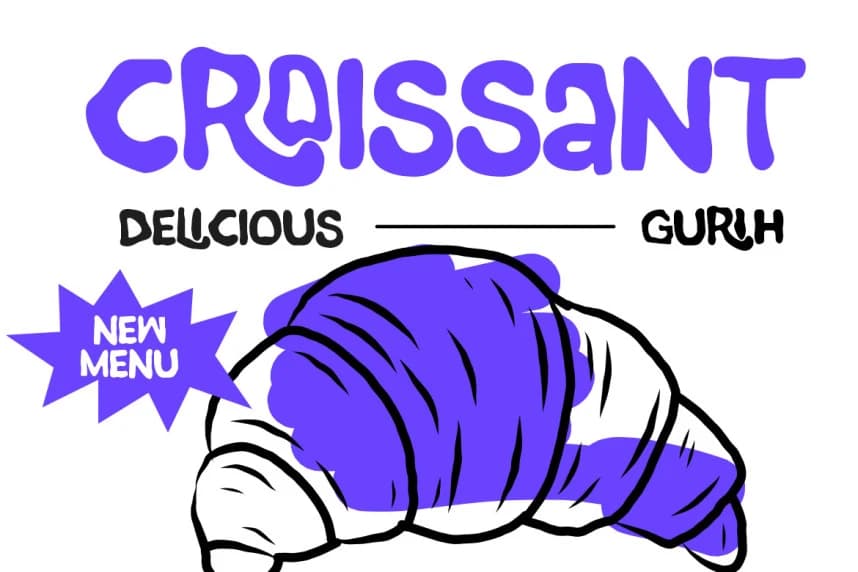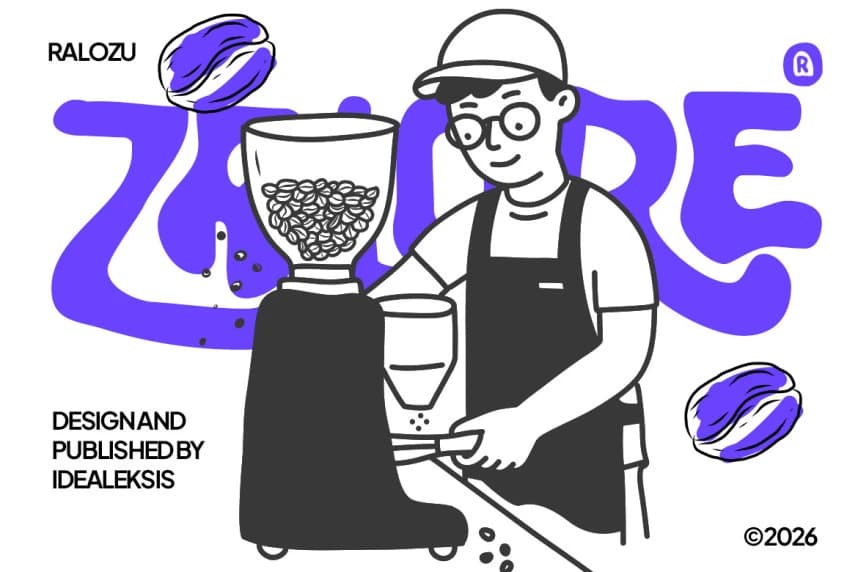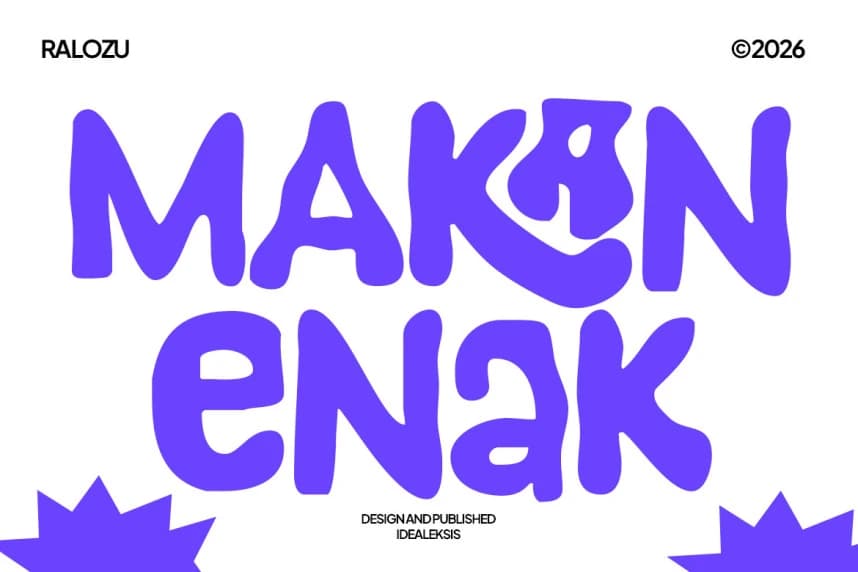
Ralozu – Food Font
Ralozu – Food Font is a bold, wavy display typeface with a dynamic and artistic flair. Its thick, undulating letterforms create a sense of rhythm and movement, giving the text a playful yet striking presence. The font’s fluid curves and vibrant personality make it ideal for creative posters, experimental branding, and designs that aim to capture attention with a sense of fun and originality.